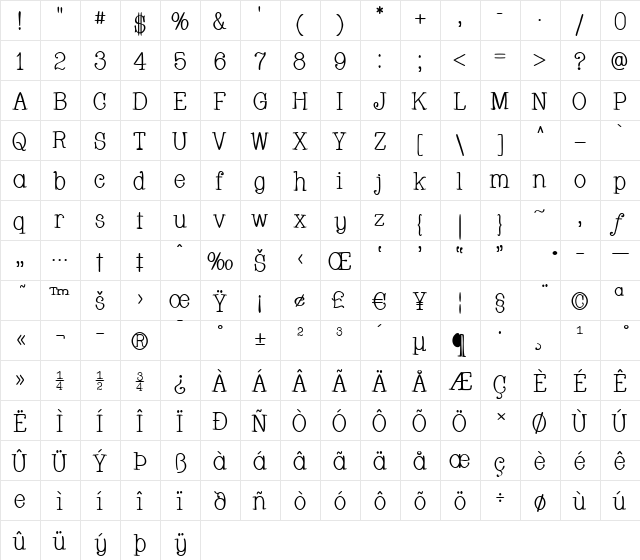
Whackadoo Regular
| Designer | Graham Meade |
Design Context for Whackadoo Typeface
Whackadoo offers clean, dependable letterforms without strong stylistic allegiance, making it a practical choice for designers who need flexibility.